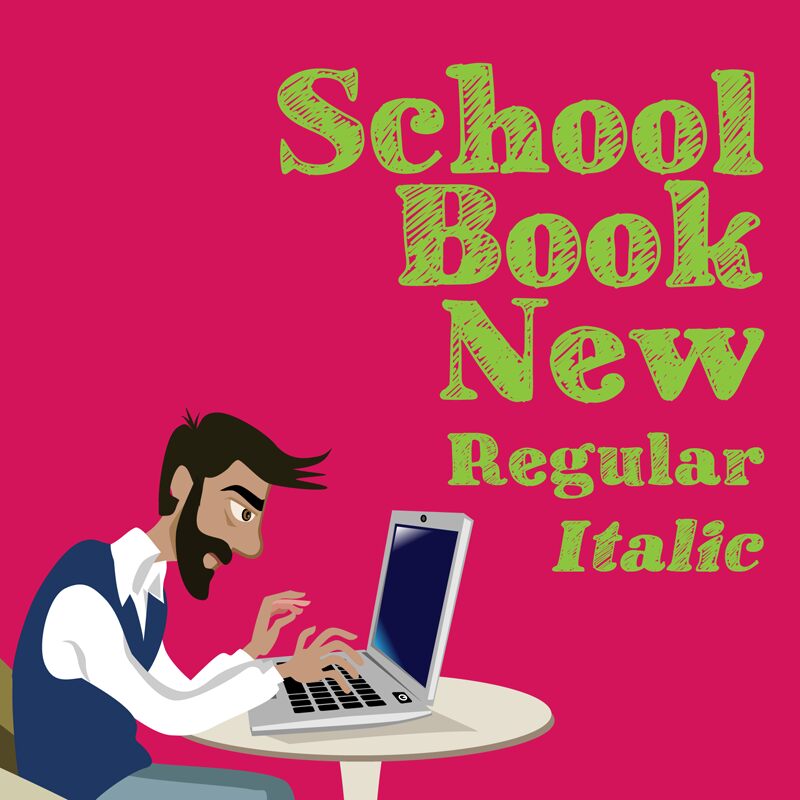
School Book New
The School Book New font, designed by Galdino Otten, brings a captivating display typeface to your projects. With its sketch-style design and extra-bold weight, this font commands attention and adds a touch of creativity to any design. Its semi-expanded width allows for legibility while maintaining a unique and playful aesthetic.
Perfect for book covers, children's illustrations, or school-related designs that need an extra dose of personality and charm, School Book New is sure to make your projects stand out from the crowd.